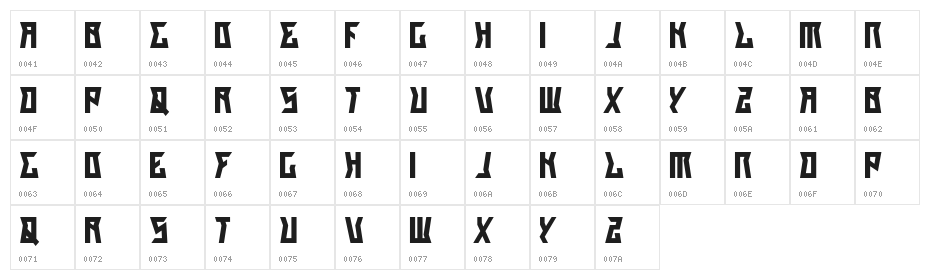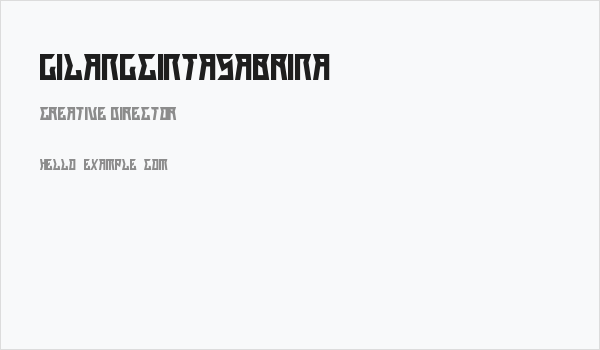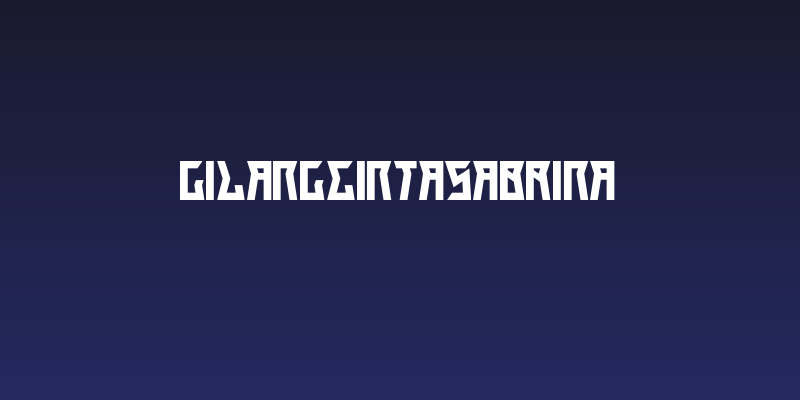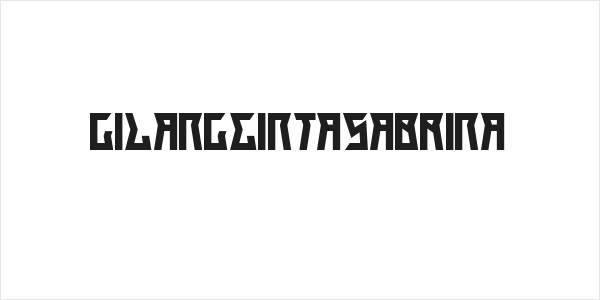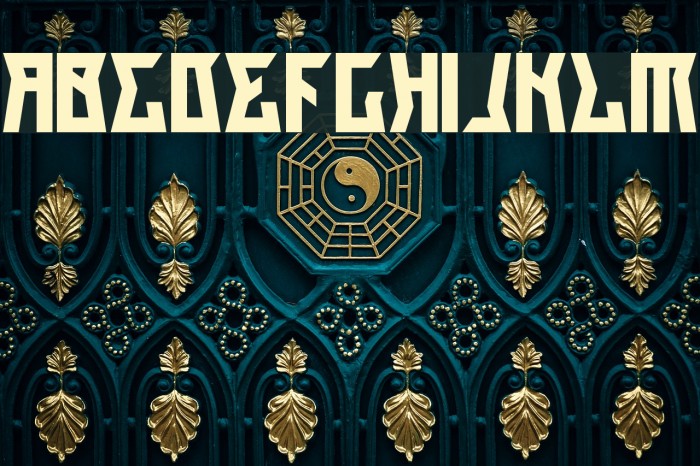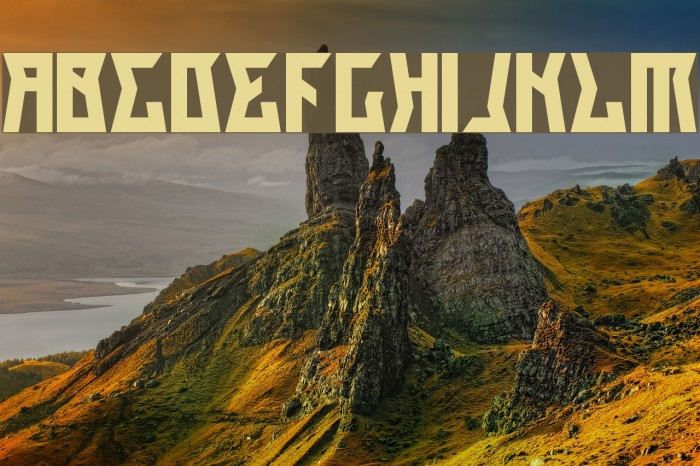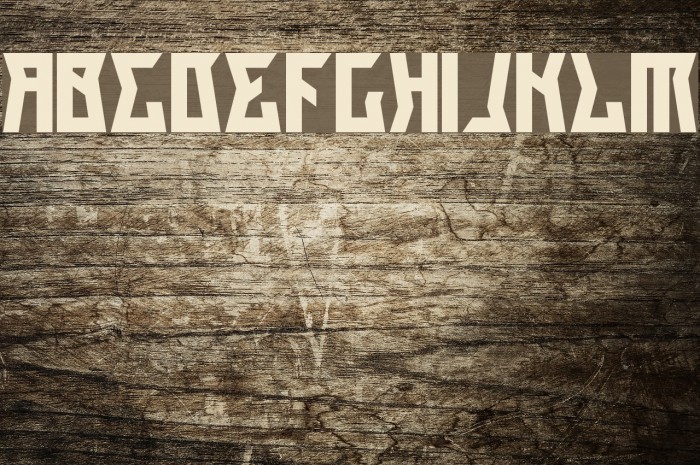
GilangCintaSabrina Font
GilangCintaSabrina Description
This font features a bold and geometric design with sharp angles and a futuristic aesthetic. The characters are constructed with strong, straight lines and triangular elements, creating a sense of movement and energy. The uppercase and lowercase letters share a consistent style, emphasizing uniformity and cohesion. The numbers and special characters maintain the same angular and bold characteristics, ensuring a harmonious look across all glyphs. This font is highly stylized, making it suitable for projects that require a modern and edgy appearance.
| Overall Style | Futuristic |
| Proposed Projects | Ideal for sci-fi themed designs, video game graphics, posters, and branding that seeks a modern and edgy look. |